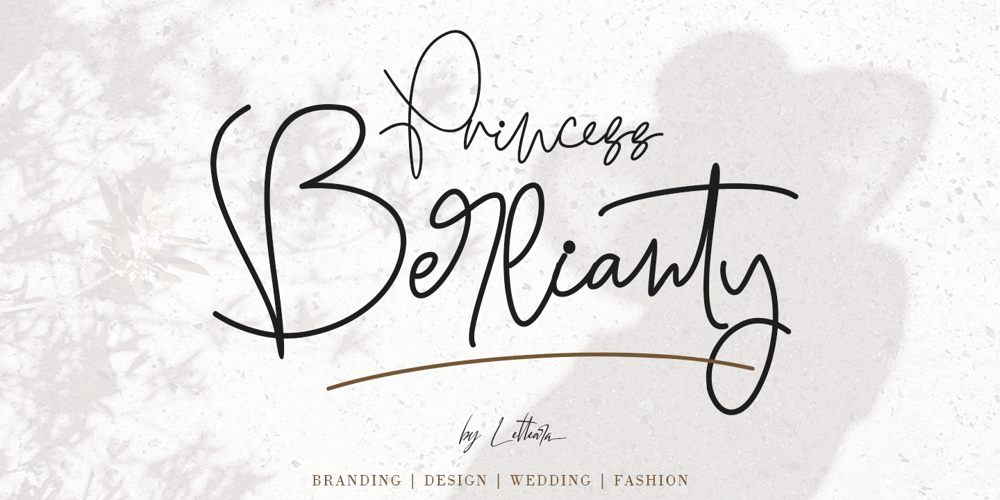
Princess Berlianty Font Family was designed by Thomas Aradea and published by Letterara. Princess Berlianty contains 1 styles and family package options. Princess Berlianty is a new modern calligraphy monoline script font. It has a classic and elegant touch and can be used for various purposes such as headings, logos, invitations, t-shirt designs, greeting cards, posters, labels, book covers, brochures ,quotes, headlines, titles, thumbnails, and any other creative design. Features : – Uppercase & Lowercase – Numerals – Punctuations (OpenType Standard) – Accents (Multilingual characters) – Ligatures – Works on PC & Mac – Simple installations – Accessible in the Adobe Illustrator, Adobe Photoshop, Adobe InDesign, even works on Microsoft Word. don’t wait anymore, put it in your shopping basket ๐ and follow me, because there will be many promos!